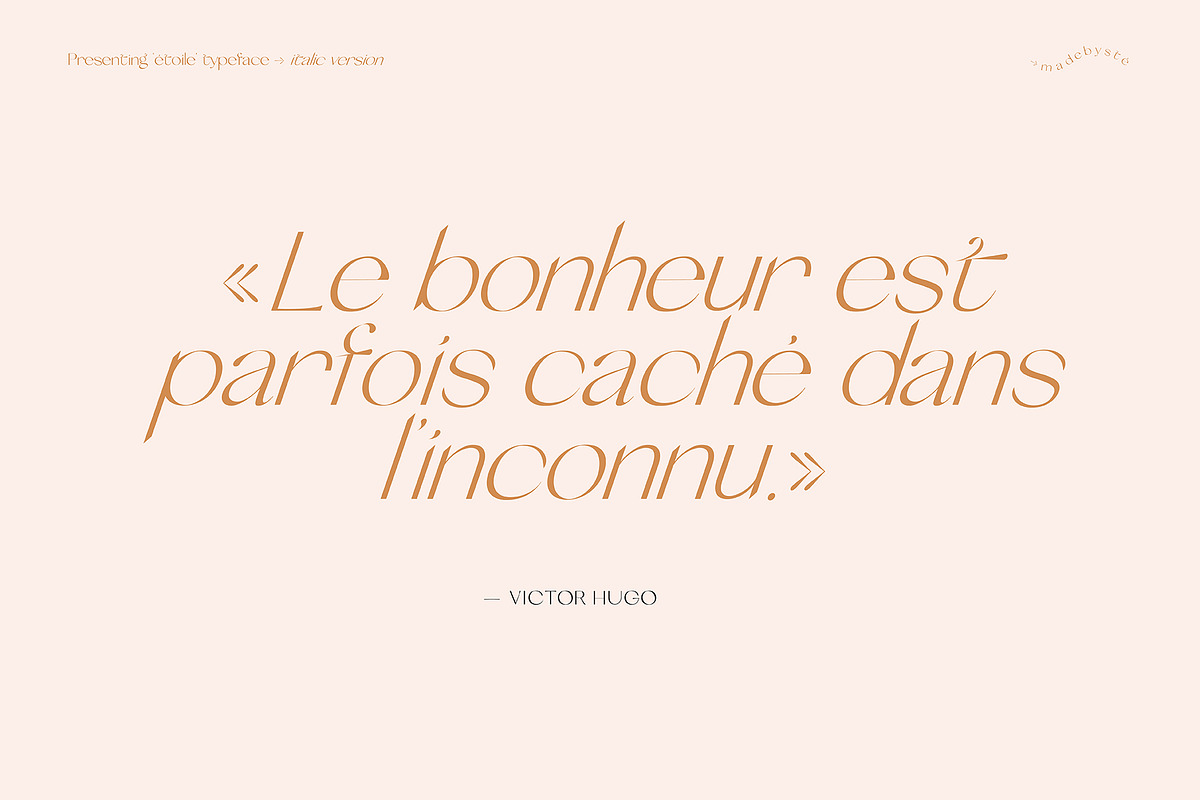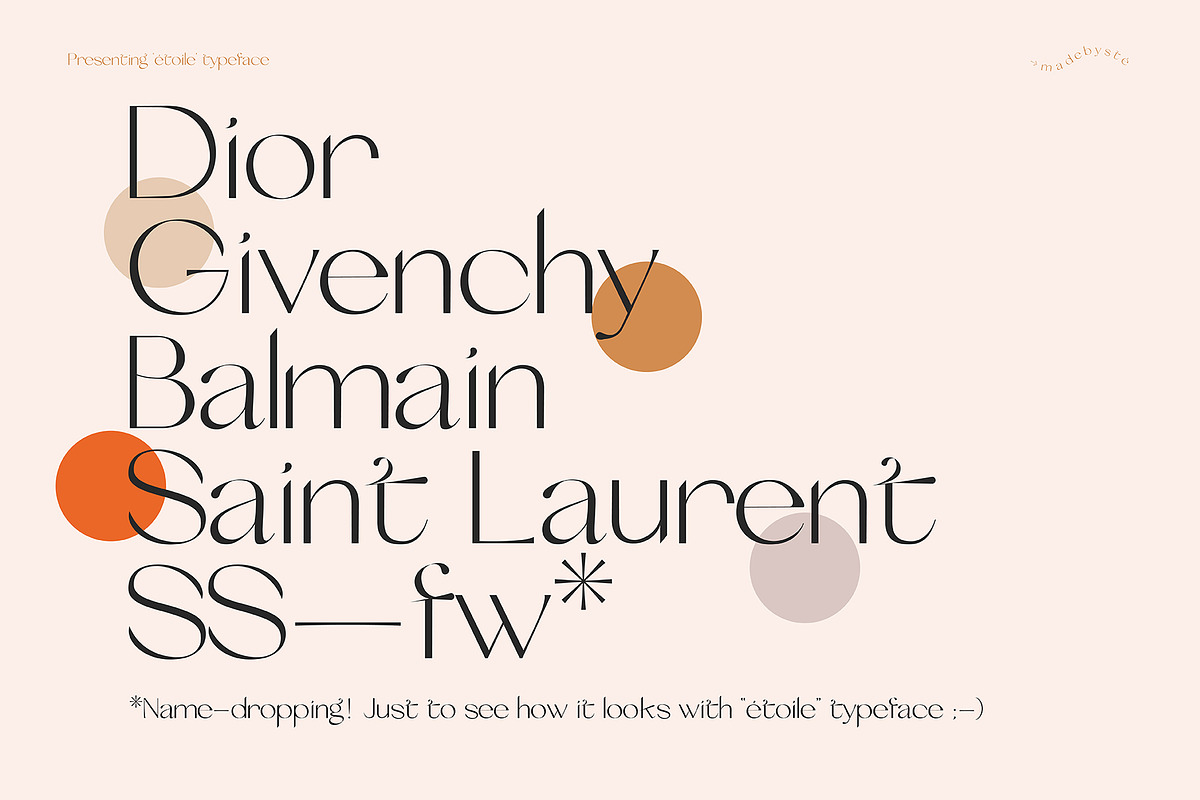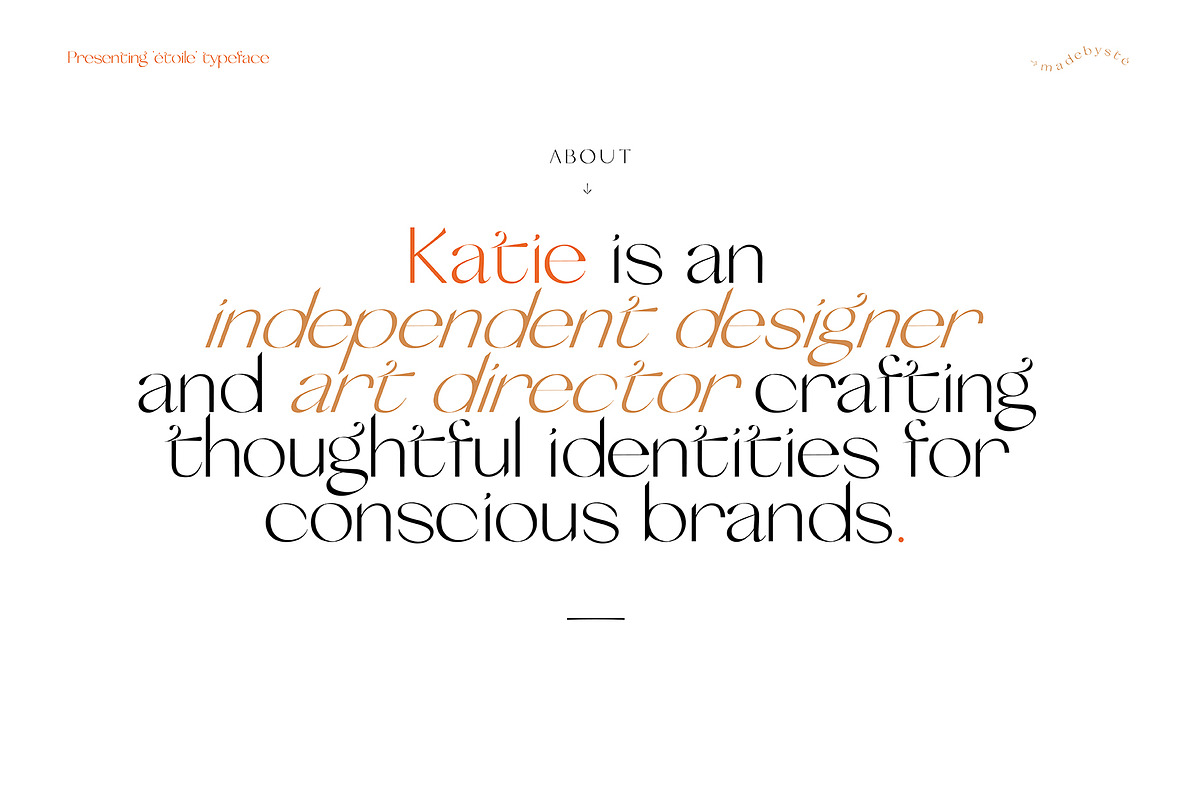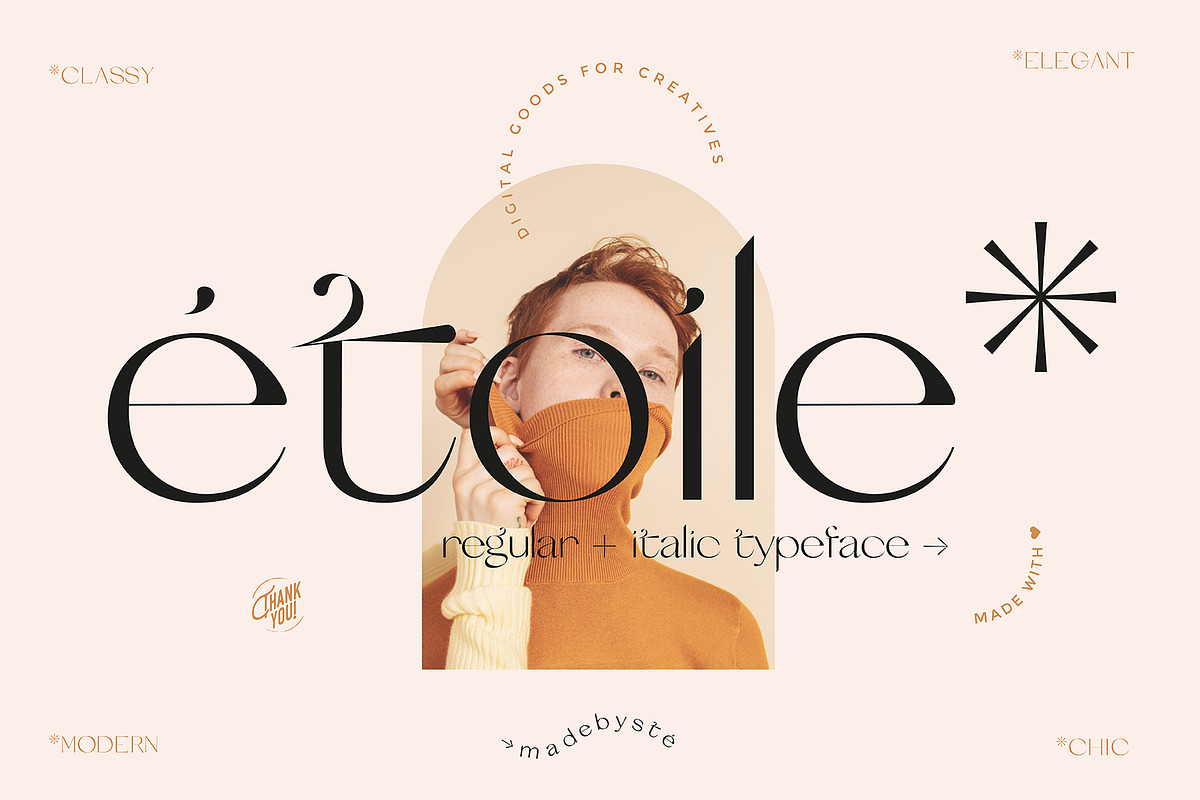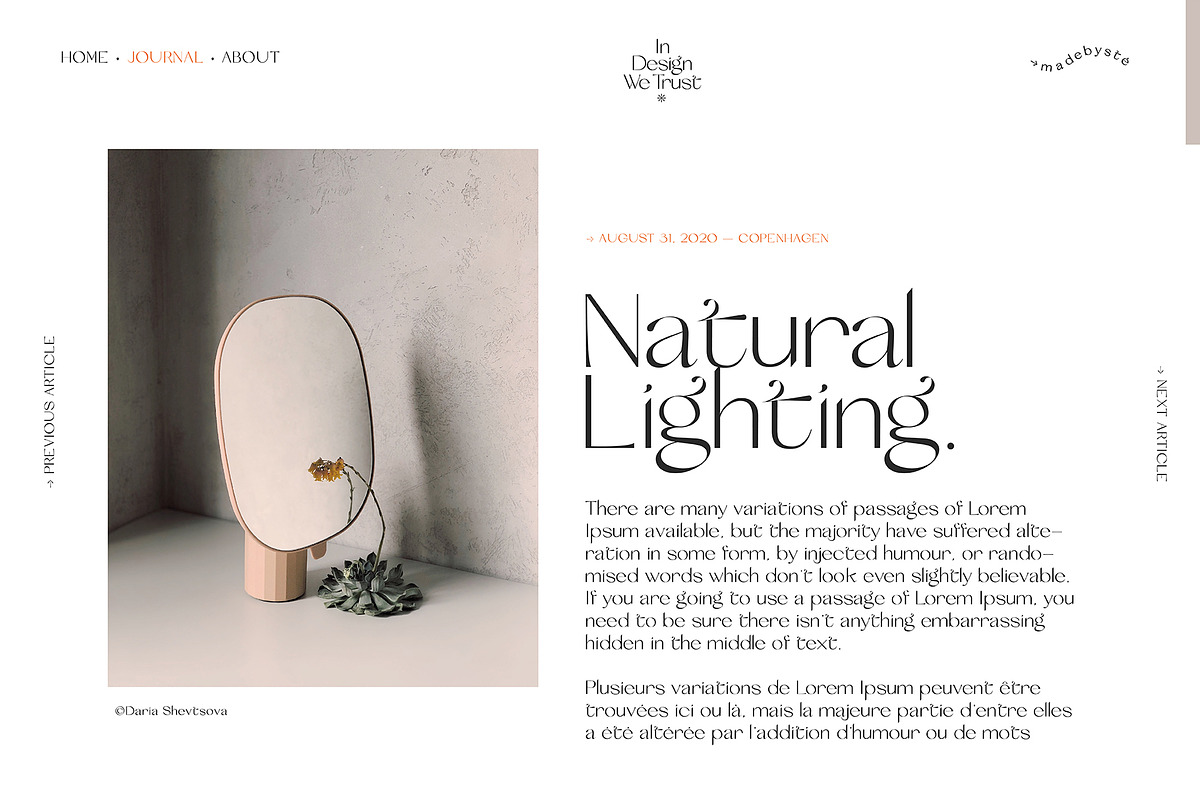
ETOILE* — MODERN REGULAR + ITALIC
Etoile ↠ Stylish • Elegant • Memorable.
Etoile typeface is a versatile, modern and classy sans serif font that is really original. It has a unique style especially with the f, the i and the t lowercase letters. It makes it memorable. Give your text a bit of elegance and sweetness. Etoile gives also a wow effect to big titles, headlines. Use it big to enjoy it’s full potential.This font is ideal for design, fashion, creative branding, editorial design and web design.